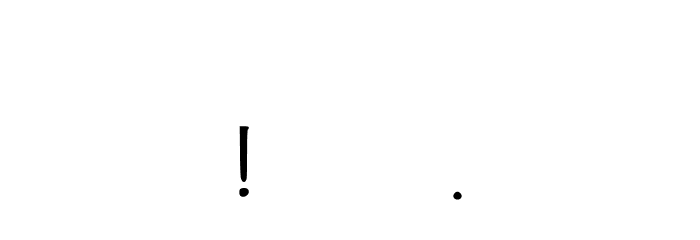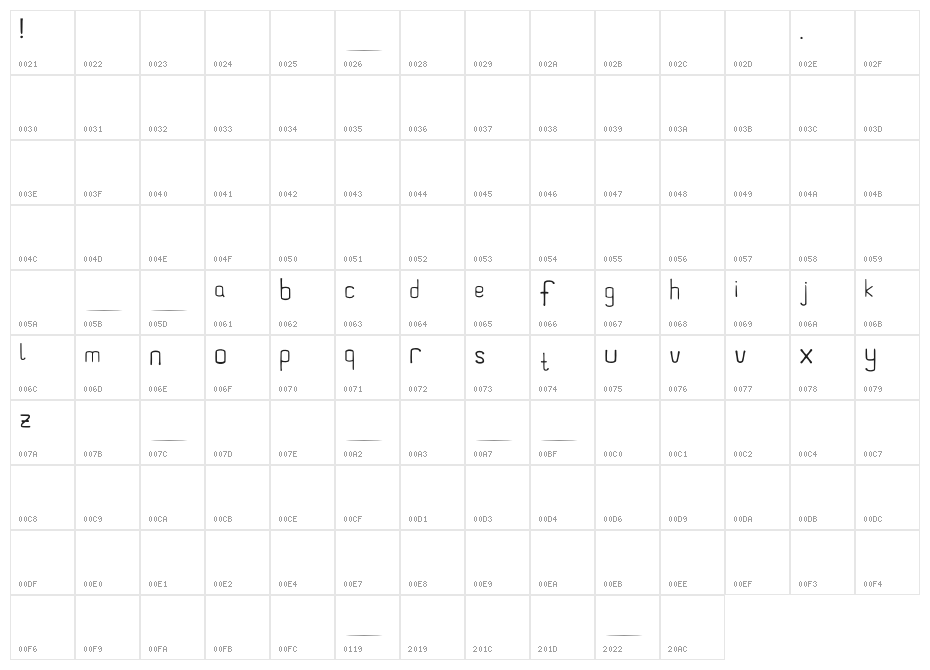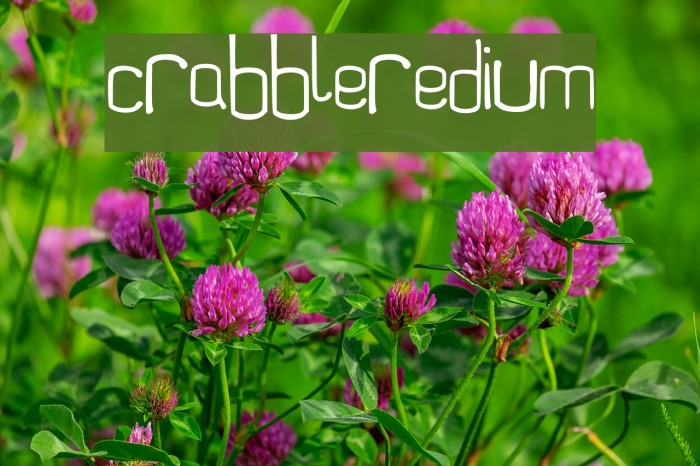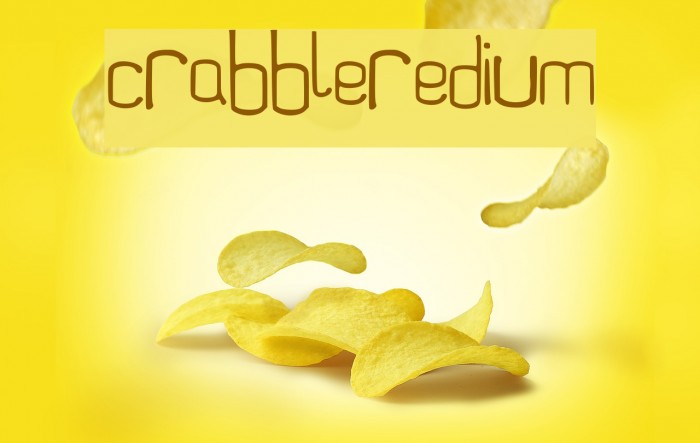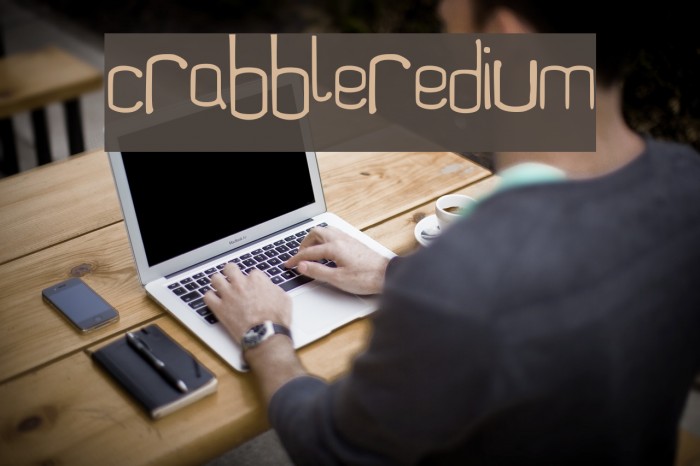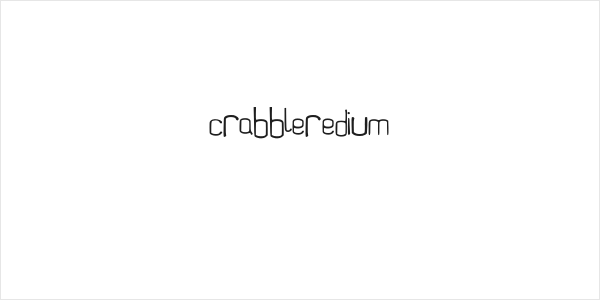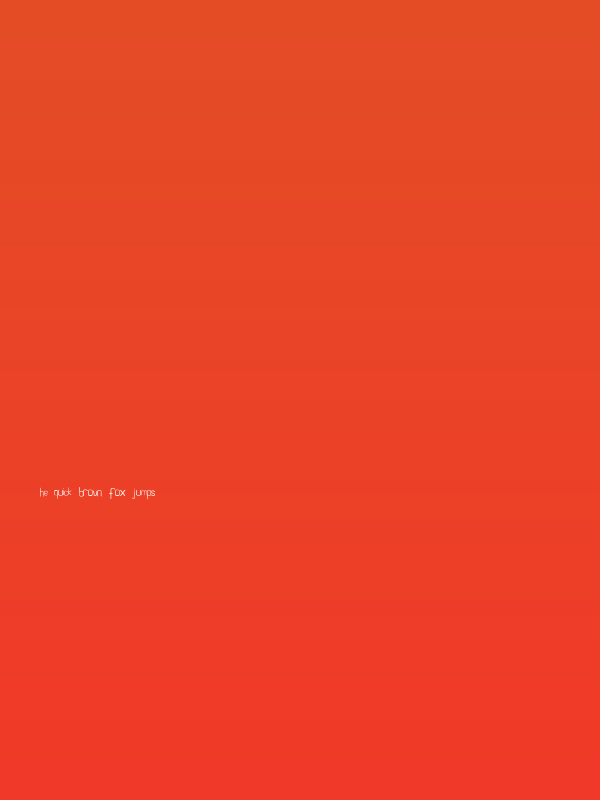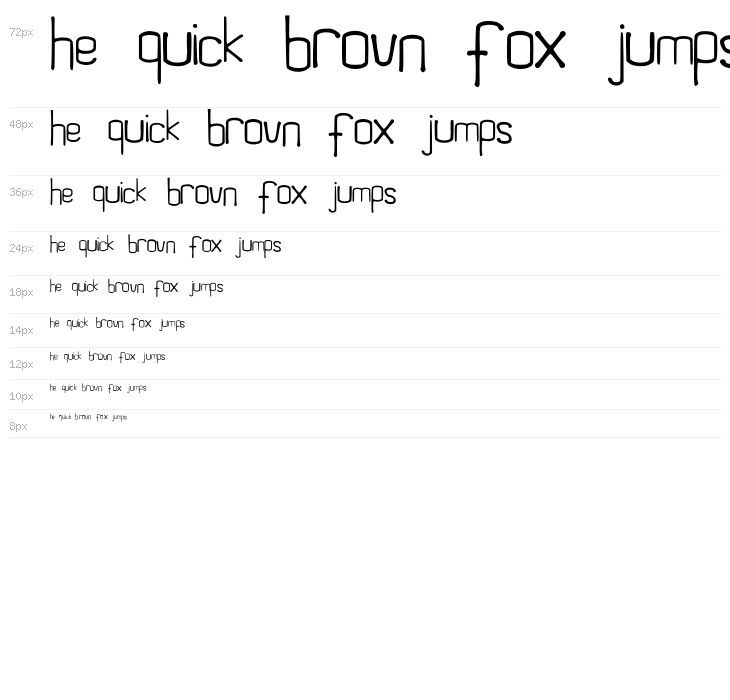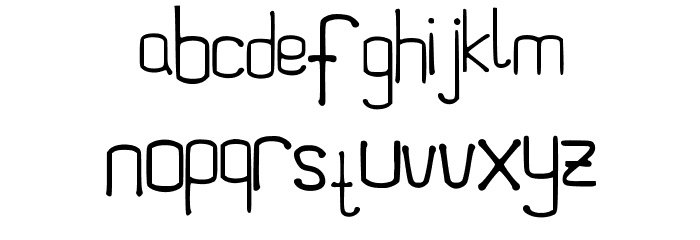
Scrabbler-Medium Font
Scrabbler-Medium Description
This font features a playful and whimsical design with a handwritten style. The characters are elongated and have a unique, quirky appearance, with some letters featuring unexpected curves and angles. The overall look is casual and artistic, making it suitable for creative projects. The font maintains a consistent stroke width, giving it a clean and modern feel while still retaining its distinctive personality.
| Overall Style | Playful, Modern |
| Proposed Projects | Ideal for children's books, creative posters, and playful branding projects. |